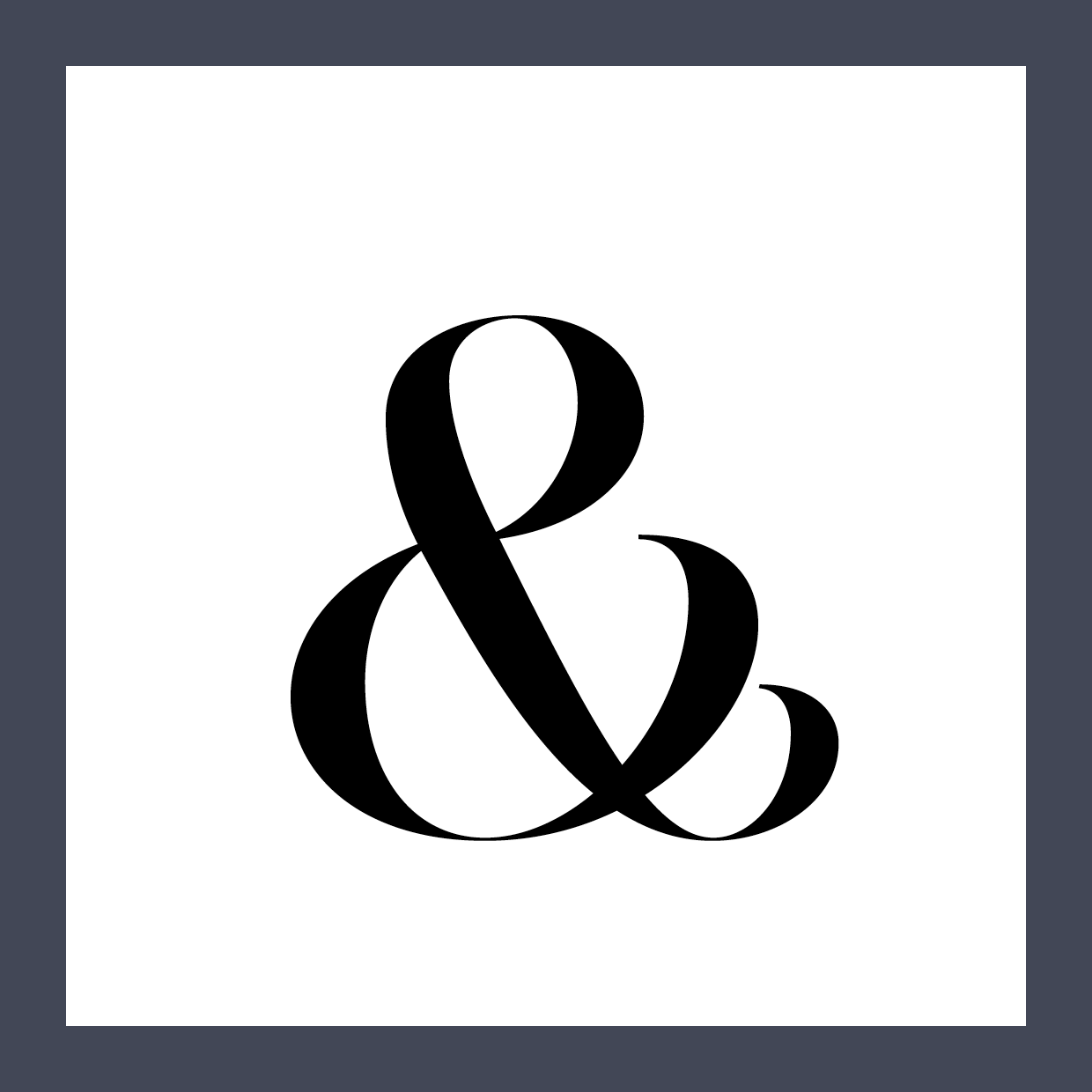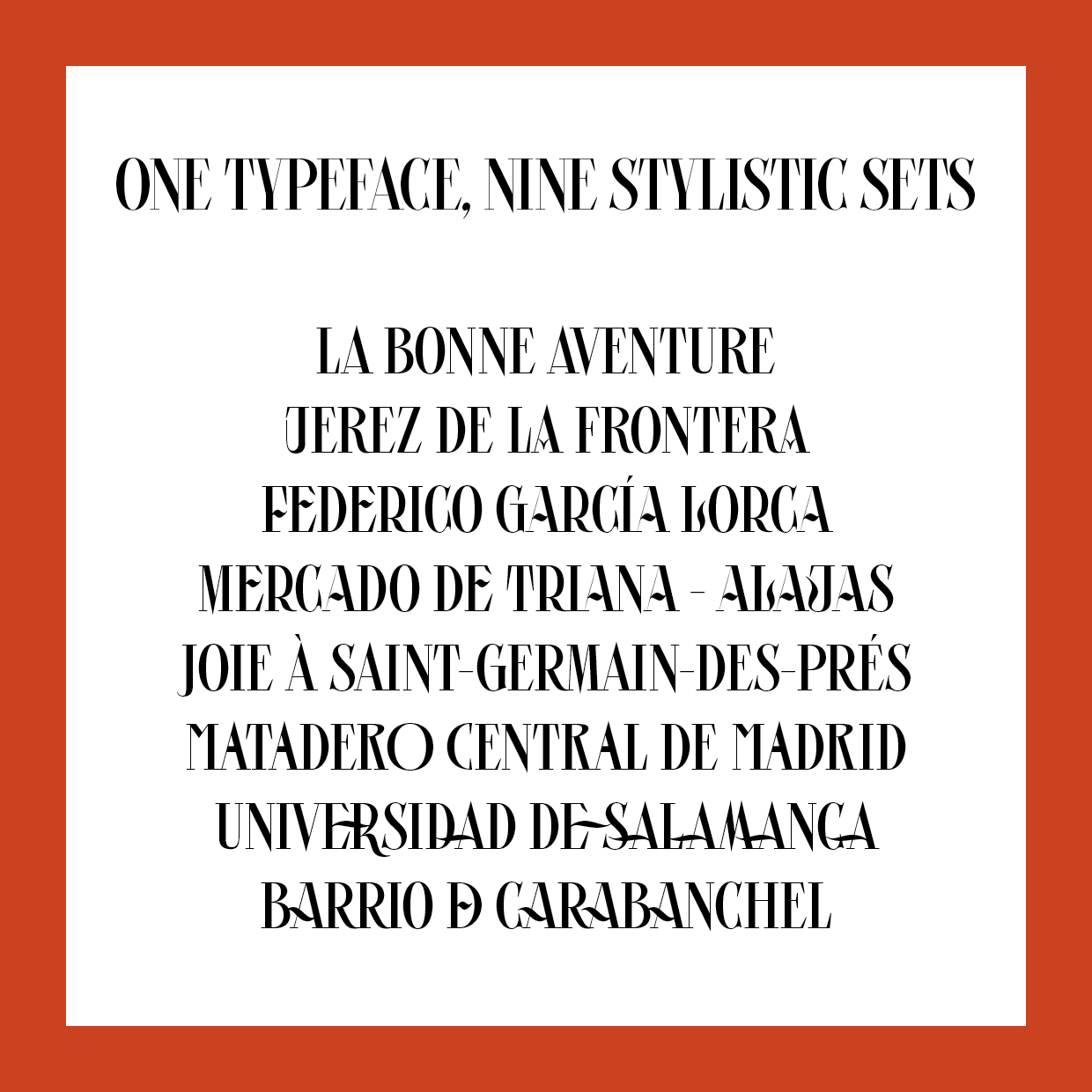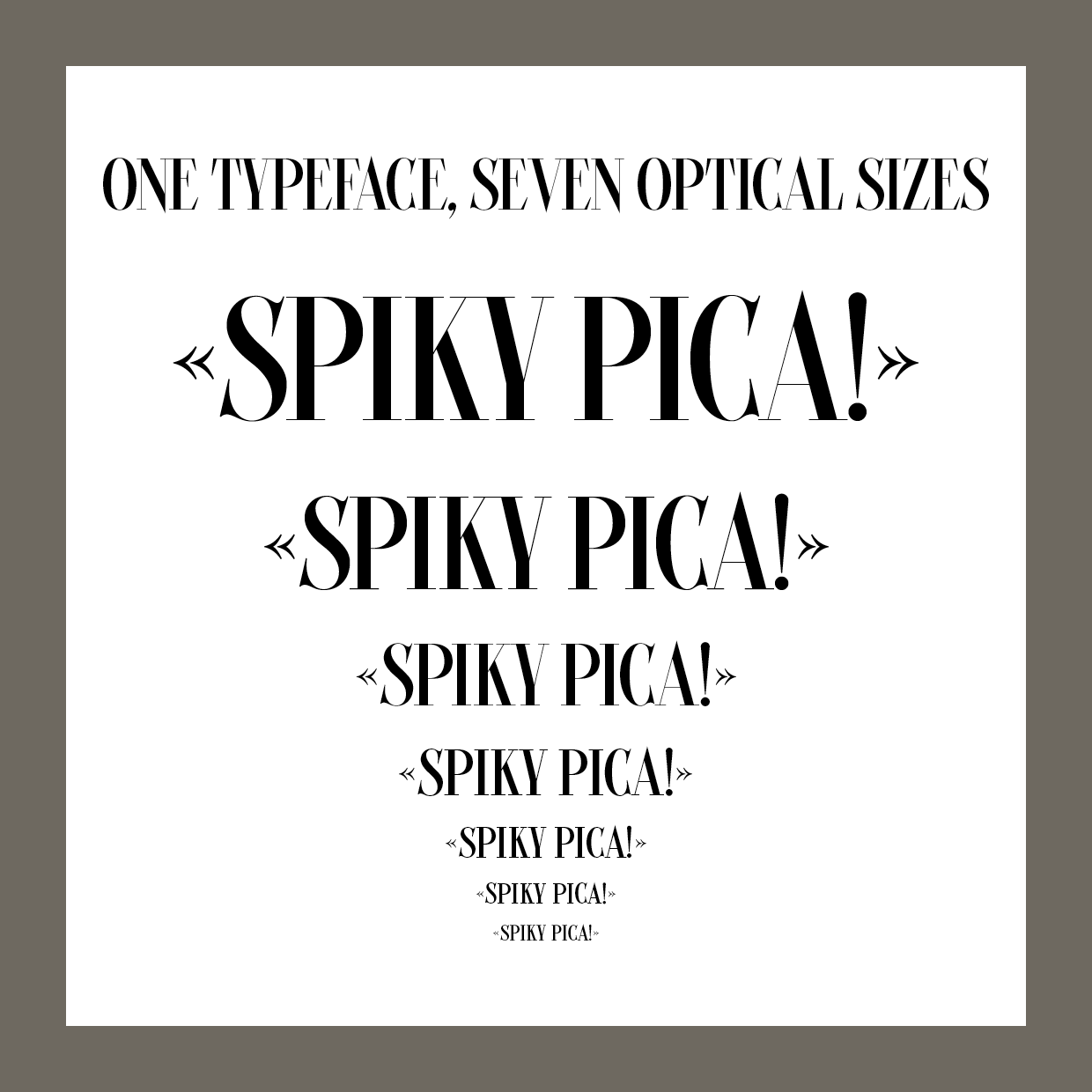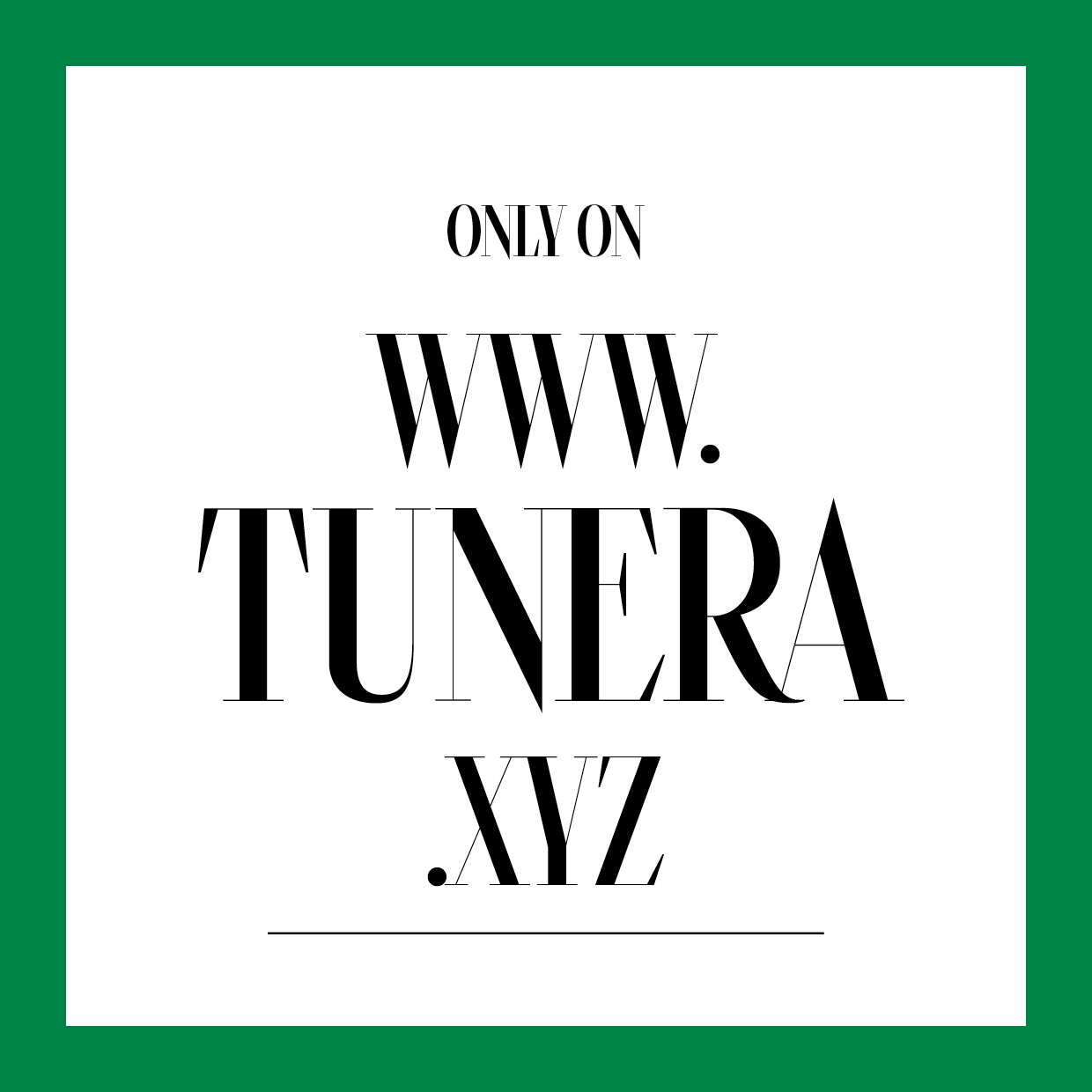
Picaflor
Picaflor is a hybrid display typeface with calligraphic details - French didone meet Spanish vernacular exhuberance.
Picaflor was created for the 9th issue of the Cercle magazine, which was dedicated to flowers.
First public version of the Picaflor typeface. All in capitals. Optical sizes, variable version.